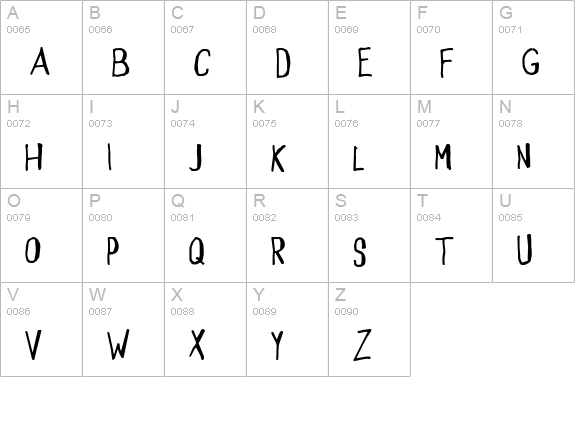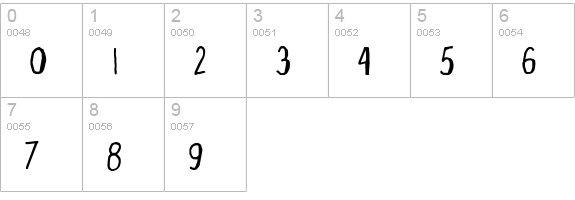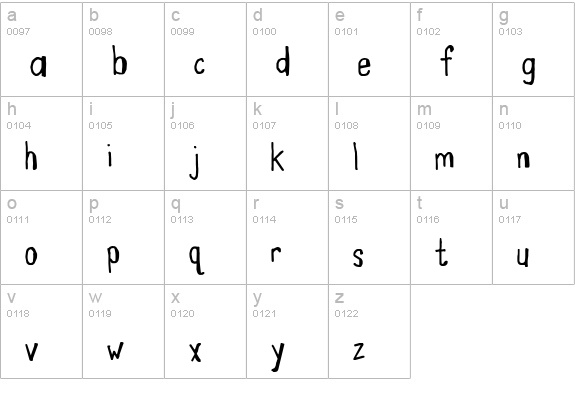
Ugly Rumor Font Details
Introducing Ugly Rumor font, a captivating typeface that effortlessly combines a bold, edgy style with a touch of quirky charm. This font is perfect for those seeking to make a statement with their designs, as it adds a unique and unconventional touch to any project. With its uneven letterforms and rough edges, Ugly Rumor font exudes a sense of raw creativity and authenticity. Its irregular shapes give it a handcrafted feel, making it ideal for creating eye-catching headlines, striking logos, or captivating social media graphics. What sets Ugly Rumor font apart is not just its distinct design, but also its availability. This font is freely available to download at FontsMarket.com. Yes, you heard that right – it's completely free! Now you can bring your creative visions to life without breaking the bank. Whether you're a seasoned designer or just starting out, Ugly Rumor font offers endless possibilities. Its bold and distinctive character will grab attention and make your designs stand out from the crowd. So why wait? Embrace the unconventional and download Ugly Rumor font today, exclusively at FontsMarket.com. Unleash your creativity and let the rumors spread about your incredible designs!